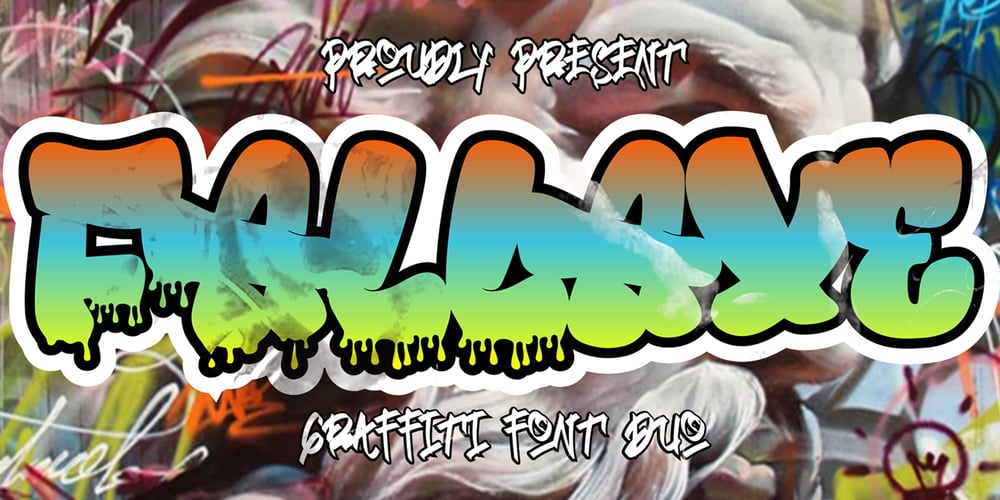
Fallaxe Drip Graffiti Font Family was designed by Sipanji and published by Sipanji21. Fallaxe Drip Graffiti contains 2 styles and family package options. Fallaxe Graffiti is a spectacular, with bold graffiti display font, there are two style font inside, normal style and dripping style. It will elevate a wide range of design projects to the highest level, be it branding, headings, wall art illustration, apparel, labels, and much more!